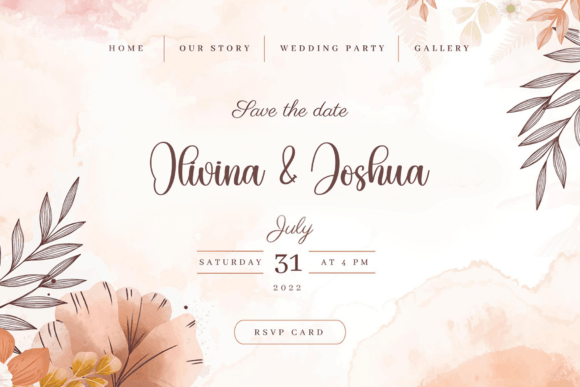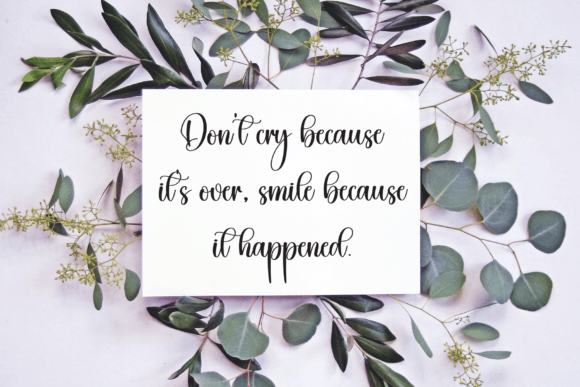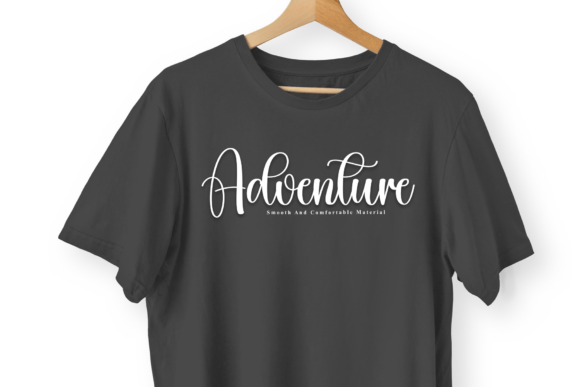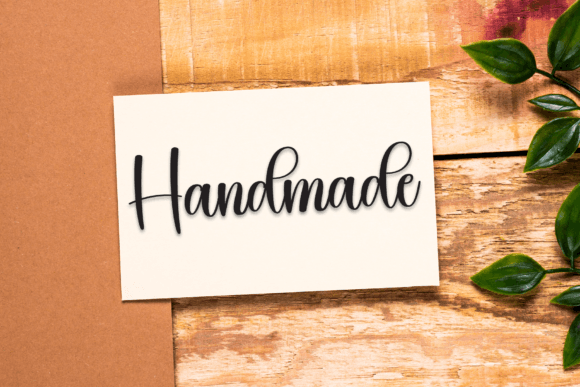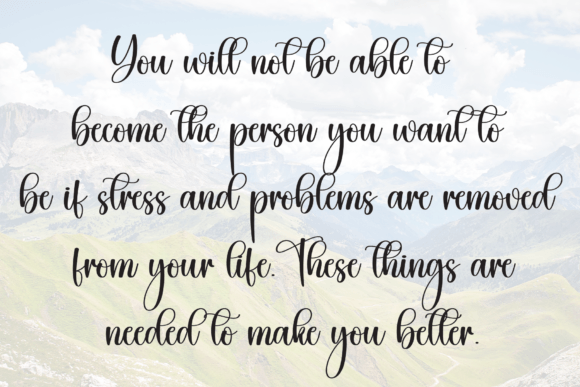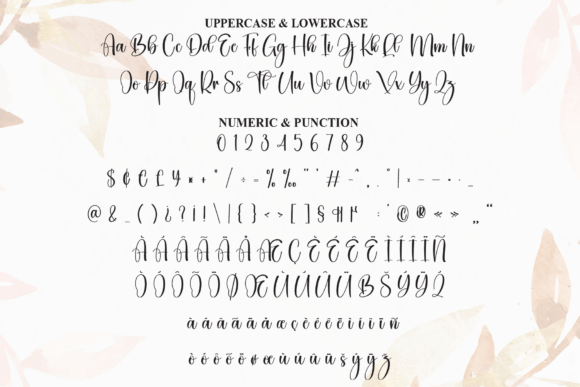
Introducing Equation Font: The Perfect Handwritten Touch for Your Designs
Are you tired of using the same old fonts in your designs? Do you want to add a personal touch that makes your work stand out? Look no further than Equation Font, a bold handwritten font that looks like natural handwriting. With its thick strokes and playful style, Equation Font is perfect for designers and crafters who want to add a unique and creative touch to their projects.
What is Equation Font?
Equation Font is a carefully crafted handwritten font that mimics the look and feel of natural handwriting. Its bold and thick strokes make it easy to read, even from a distance. The font’s playful style adds a touch of personality to any design, making it perfect for a wide range of projects, from creative crafts to digital designs.
Key Features of Equation Font
- Bold and Thick Strokes: Equation Font features bold and thick strokes that make it easy to read and give it a unique look.
- Playful Style: The font’s playful style adds a touch of personality to any design, making it perfect for creative projects.
- Natural Handwriting Look: Equation Font is designed to mimic the look and feel of natural handwriting, giving it a personal and authentic touch.
- Easy to Read: The font’s clear and bold strokes make it easy to read, even from a distance.
Uses of Equation Font
Equation Font is perfect for a wide range of projects, including:
- Creative Crafts: Use Equation Font to add a personal touch to your craft projects, such as handmade cards, gift tags, and scrapbooking.
- Digital Designs: Add a unique and creative touch to your digital designs, such as social media graphics, blog posts, and presentations.
- Signage and Posters: Use Equation Font to create eye-catching signs and posters that grab attention.
- Branding and Packaging: Add a personal touch to your brand’s packaging and marketing materials with Equation Font.
Benefits of Using Equation Font
Using Equation Font in your designs offers a range of benefits, including:
- Unique and Creative Look: Equation Font adds a unique and creative touch to your designs, setting them apart from others.
- Easy to Read: The font’s clear and bold strokes make it easy to read, even from a distance.
- Personal Touch: Equation Font adds a personal touch to your designs, making them more relatable and engaging.
- Versatile: The font is perfect for a wide range of projects, from creative crafts to digital designs.
Tips for Using Equation Font
Here are some tips for getting the most out of Equation Font:
- Use it Sparingly: Use Equation Font sparingly to add a touch of personality to your designs, rather than overwhelming them.
- Pair it with Other Fonts: Pair Equation Font with other fonts to create a unique and creative look.
Equation Font is a bold handwritten font that looks like natural handwriting, making it perfect for designers and crafters who want to add a personal touch to their projects. With its thick strokes and playful style, Equation Font is easy to read and adds a unique and creative touch to any design. Whether you’re working on a creative craft project or a digital design, Equation Font is the perfect choice.